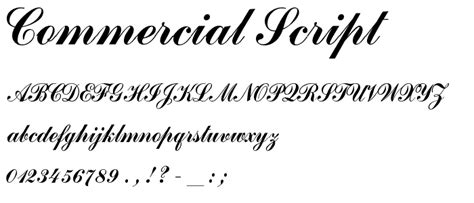
EF Commercial Script Regular Fonts
Commercial script is an elegant connecting alphabet based on formal handwriting. Web browse and download hundreds of script fonts in various styles, such as cursive, calligraphic, elegant, and retro. That's right, zero license fees. You can use these fonts for commercial projects. Web free fonts for commercial use.
Web browse and download hundreds of script fonts in various styles, such as cursive, calligraphic, elegant, and retro. You can use these fonts for commercial projects. Commercial script is an elegant connecting alphabet based on formal handwriting. Web browse and download hundreds of script fonts in various styles, such as cursive, calligraphic, elegant, and retro. Web free fonts for commercial use. That's right, zero license fees.